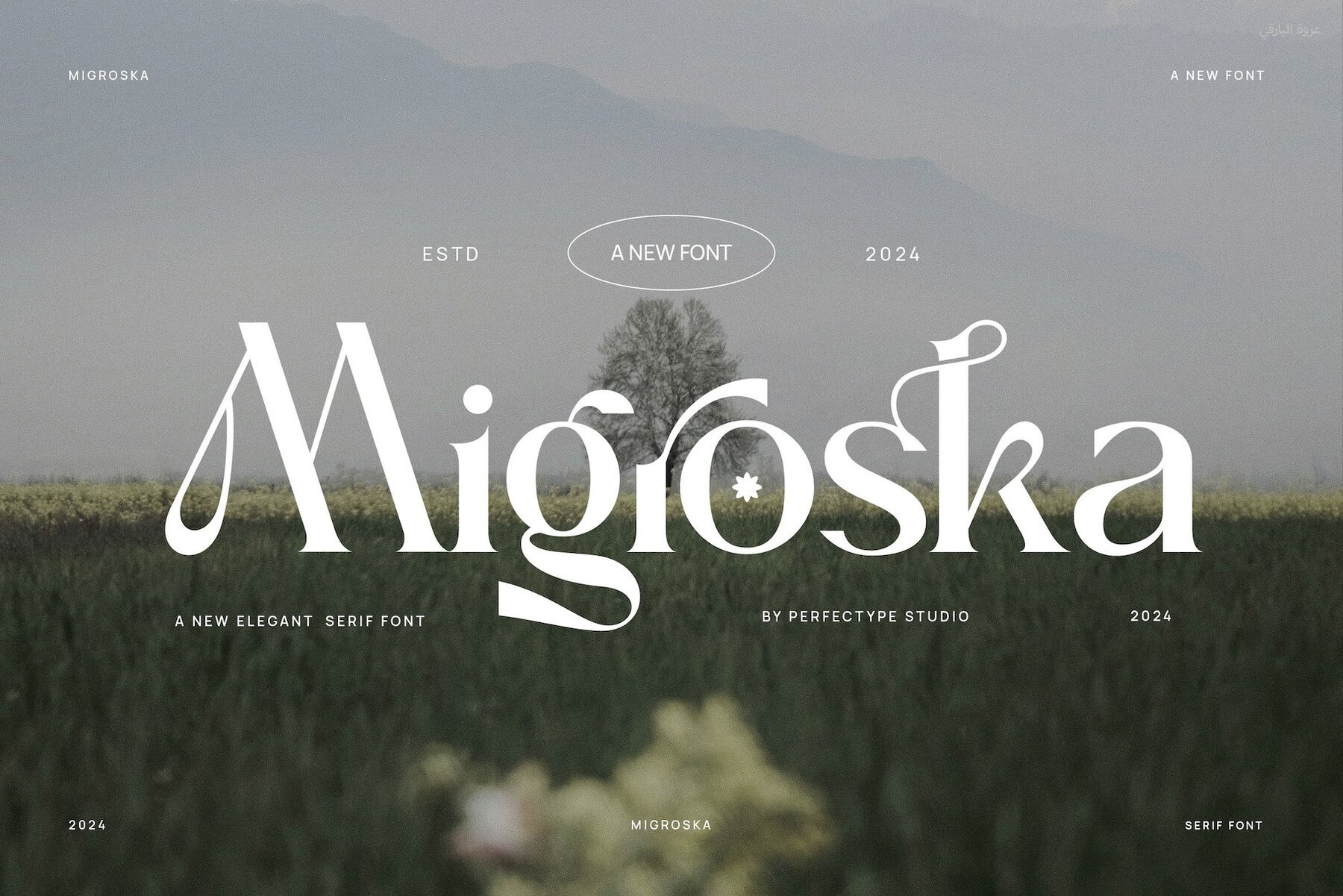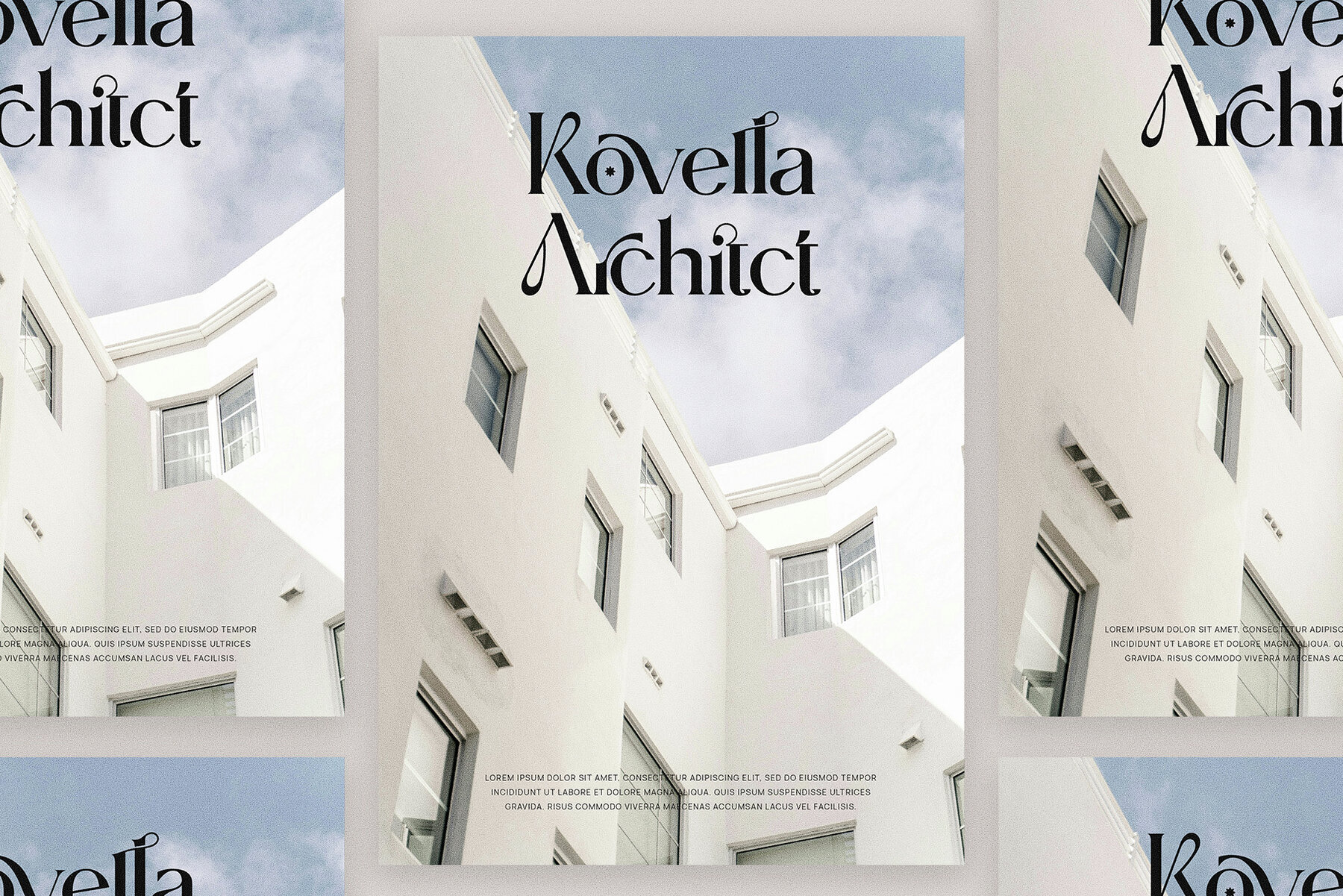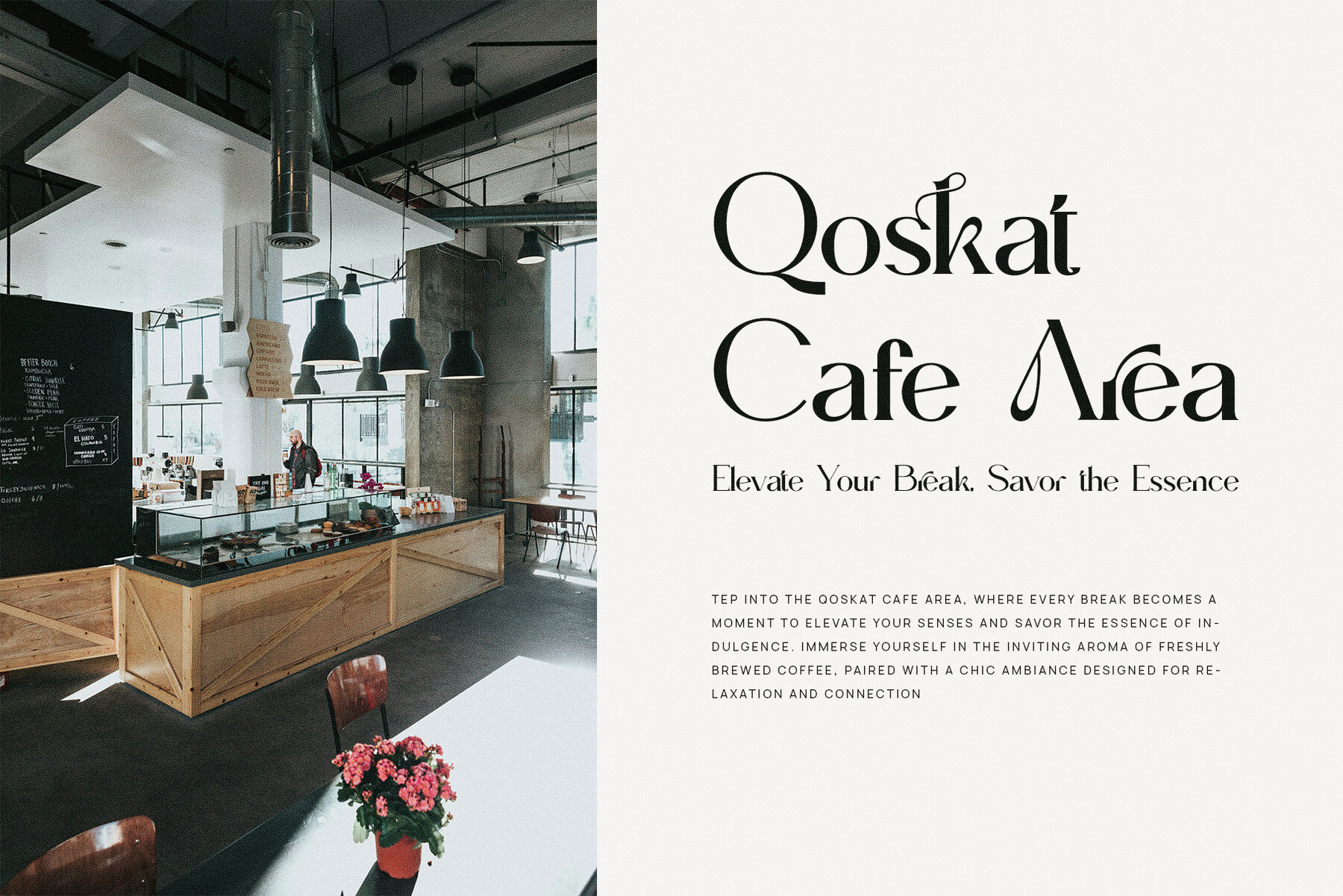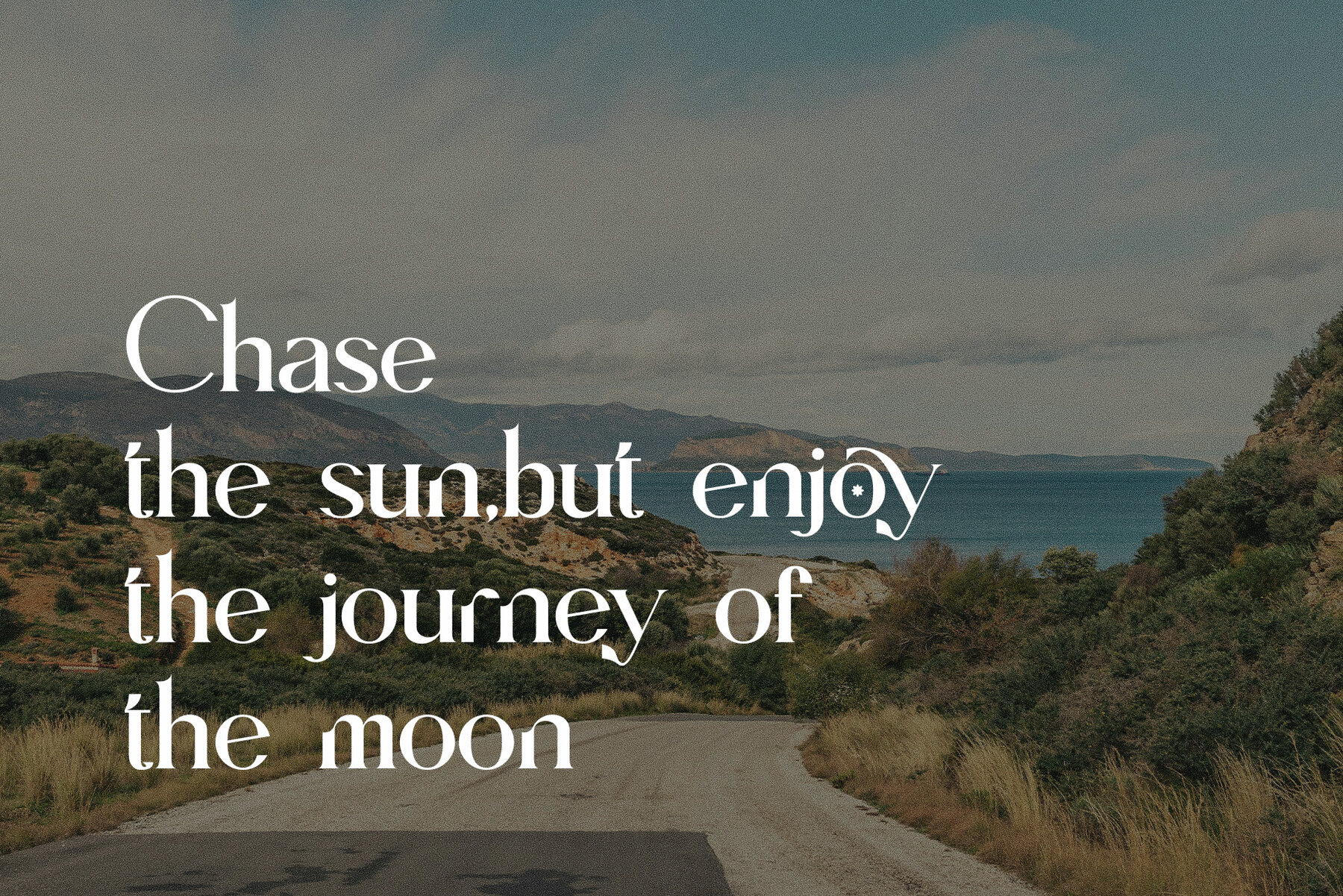
Migroska Font
Migroska
Migroska Elegant Serif Font, designed by Perfectype Studio, is a typeface that merges modern elegance with classic sophistication. With distinct serifs, graceful curves, and a balanced structure, it offers a refined touch to any project. Its uniquely crafted ligatures and alternate features provide designers flexibility, enhancing custom typography with style and precision. Ideal for high-end branding, Migroska is perfect for sophisticated logos, luxury product packaging, and elegant websites. Its versatility ensures clarity and readability in both large headlines and smaller body text, adding an air of sophistication to any design.
This font is particularly suited for industries valuing elegance, luxury, and fine detail. It's an excellent choice for boutique brands, fine dining establishments, fashion, lifestyle, and high-end product lines. Migroska’s modern yet timeless aesthetic makes it compatible with both print and digital mediums. With its refined design and versatile attributes, Migroska Elegant Serif Font is an essential tool for creating high-quality, memorable branding. Whether it's for logos, websites, magazines, or ad campaigns, Migroska delivers a sophisticated, lasting impact.